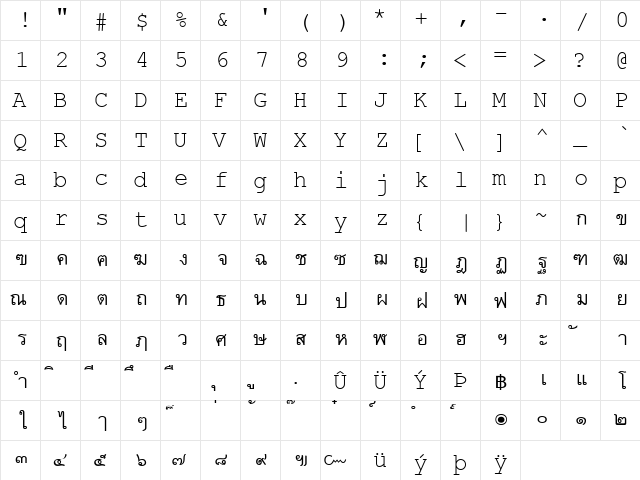
Courier ProportionalThai Regular
Courier ProportionalThai brings the precise, column-aligned rhythm of monospaced typography to designs that value technical clarity and systematic order.
A natural fit for code editors, technical documentation, developer-focused branding, and terminal-inspired UI.